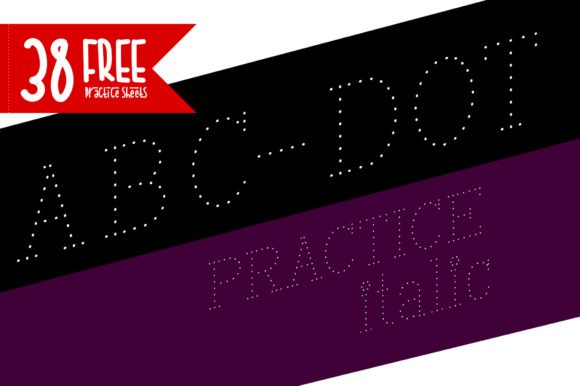
Unleash Your Creativity with the ABC Dot Practice Italic Font
Have you ever found yourself scribbling notes on a piece of paper, desperately trying to create the perfect doodle to illustrate your point? Maybe it’s a simple design concept, or perhaps it’s a complex idea that needs visual representation. Whatever it is, you know that the right font can make all the difference.
Enter the ABC Dot Practice Italic Font, a clean and simple dotted display font designed to bring a touch of cool to your work. Whether you’re a student, a designer, or simply someone who loves to express themselves creatively, this font is the perfect addition to your toolkit. Its versatility makes it ideal for school work, web designs, business cards, and more.
For designers, the ABC Dot Practice Italic Font offers a valuable resource for adding a unique touch to their projects. Its simplicity and elegance make it a great choice for branding, packaging, and even editorial design. With its clean lines and dotted texture, this font is sure to elevate your designs and leave a lasting impression.
Key Features of ABC Dot Practice Italic Font
- Unique Characteristics: The ABC Dot Practice Italic Font features a unique, hand-drawn design with subtle dot patterns, making it ideal for creative and educational purposes.
- Italic Style: The font is specifically designed in an italic style, adding a touch of elegance and sophistication to any design.
- Legibility: The font is carefully crafted for optimal legibility, ensuring that text remains clear and readable even at smaller font sizes.
ABC Dot Practice Italic Font Review
Overall, I think the ABC Dot Practice Italic Font is a great font for beginners or those who want a fun, playful feel to their text. It works well for ✨ creative projects, children’s books, and educational materials. The italic style adds a nice touch of elegance and sophistication, making it suitable for a wide range of applications.
The font’s unique design, with dots connecting the letters, makes it stand out from more traditional fonts. It’s perfect for ✨ adding a personal touch to digital art, posters, or even social media graphics.
However, I do have a few concerns about the font’s limitations. ⚠️ Legibility can be an issue in smaller font sizes, making it difficult to read for some users. Additionally, the font may not be suitable for ✨ formal or professional documents, as it can come across as too casual or playful.
In conclusion, I think the ABC Dot Practice Italic Font is a great addition to any font collection, but it’s essential to consider its limitations before using it in a project. With the right application, it can add a fun and creative touch to your designs.
Recommendation
I would recommend this font for ✨ beginners, hobbyists, and those who want to add a playful touch to their projects. However, it may not be the best choice for ✨ formal or professional applications.
Tips for Getting the Most Out of ABC Dot Practice Italic Font
Use ABC Dot Practice Italic Font for titles, headings, and emphasis to add a playful touch to your design.
Pair it with bold or sans-serif fonts to create a visually appealing contrast.
Experiment with different font sizes and styles to achieve the desired effect.